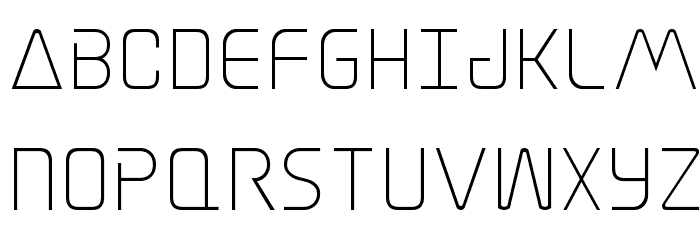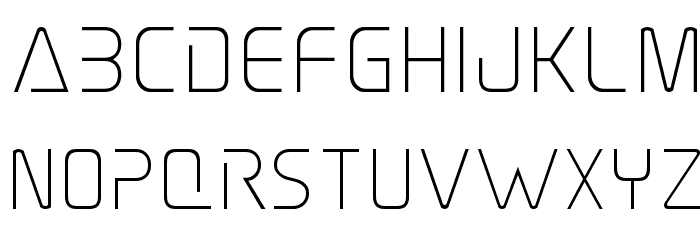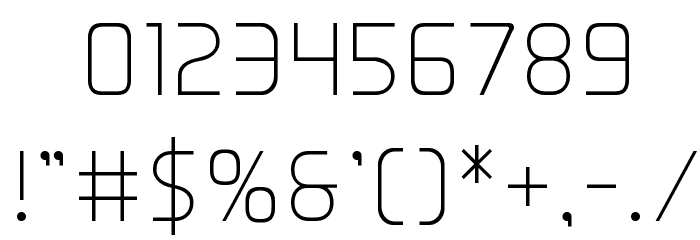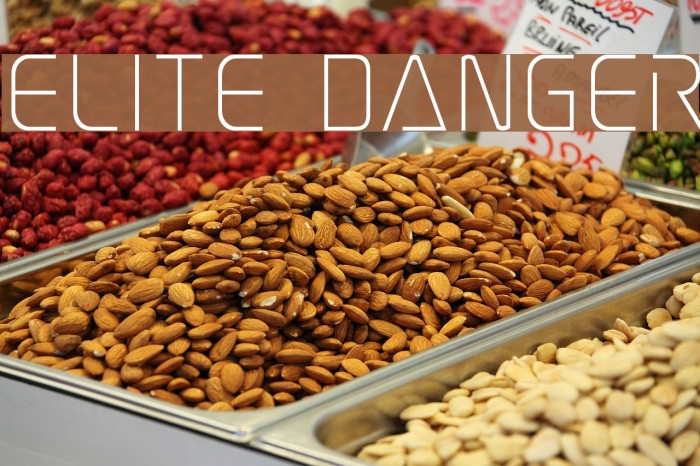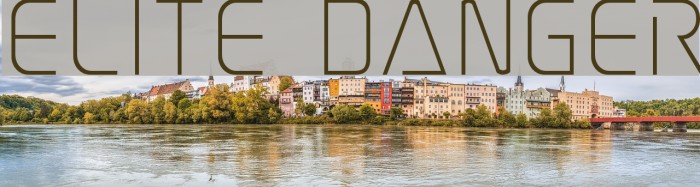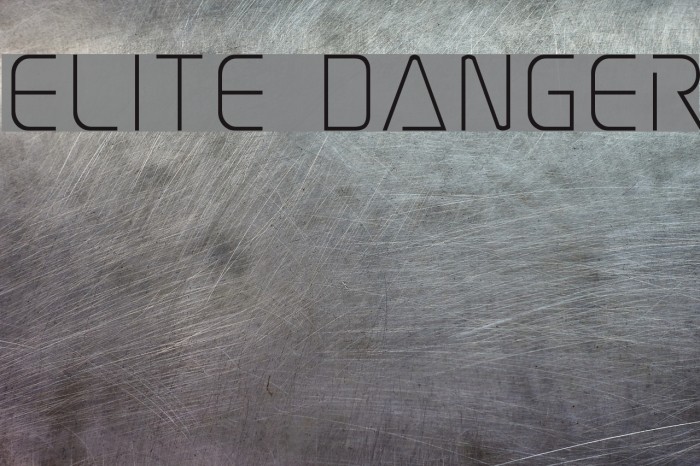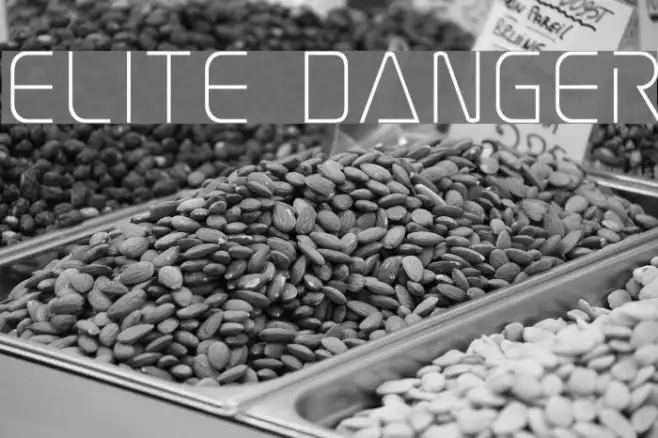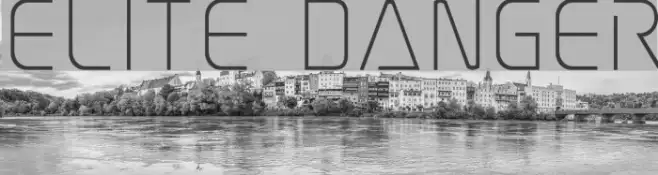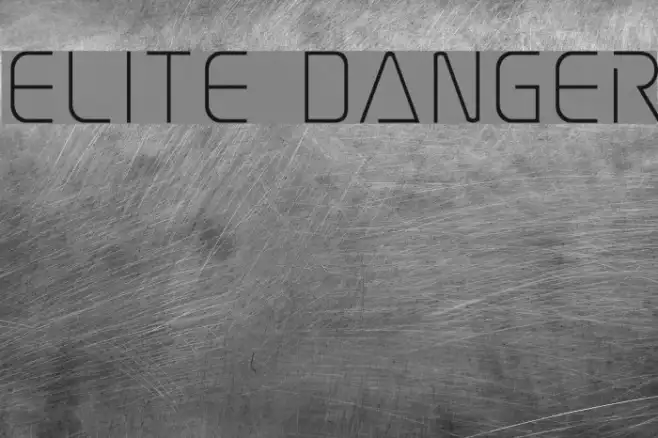
Elite Danger Font
This font features a modern, geometric design with clean lines and a minimalist aesthetic. The characters are constructed with a consistent stroke width, giving it a sleek and futuristic appearance. The uppercase letters are angular and sharp, while the lowercase letters maintain a similar geometric style. The numerals are distinct and align well with the overall design, making them easy to read. Special characters are included, matching the font's clean and structured look. This font is ideal for projects that require a contemporary and technical feel.
A modern, geometric font with clean lines and a minimalist style.
- Proposed Projects: Ideal for technology branding, modern web design, and futuristic posters.